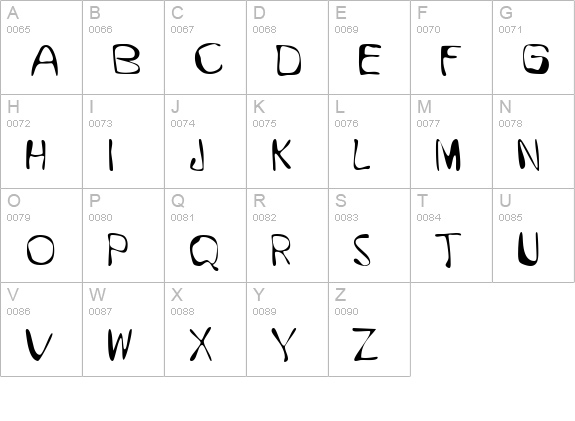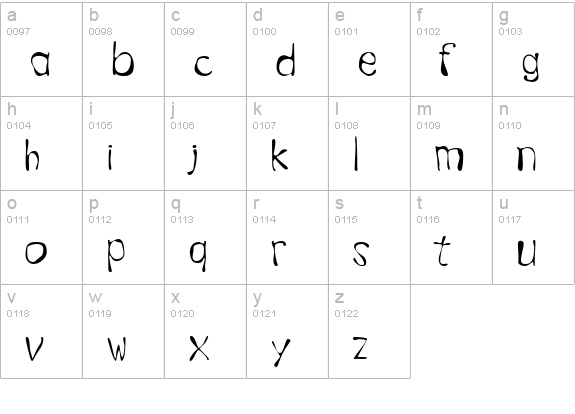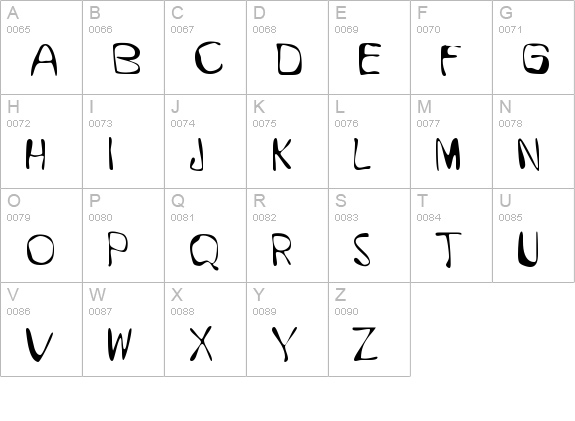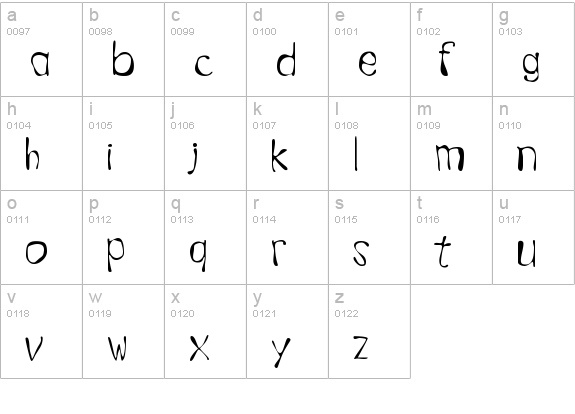
GFWet Font Details
GFWet font is a striking and unique typeface that exudes a sense of creativity and modernity. Its bold and flowing design captures attention and adds a touch of sophistication to any project. With its sleek lines and stylish curves, GFWet font is perfect for logos, headlines, posters, and more. The best part? GFWet font is completely free to download at FontsMarket.com. This means you can enhance your designs with this eye-catching font without any cost. Don't miss out on this fantastic opportunity to elevate your projects with GFWet font's distinctive style and flair. Download it today and start creating stunning visuals that stand out from the crowd.